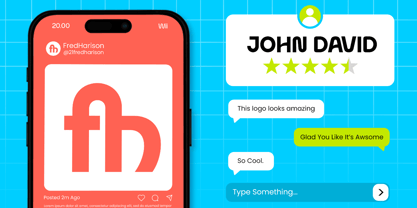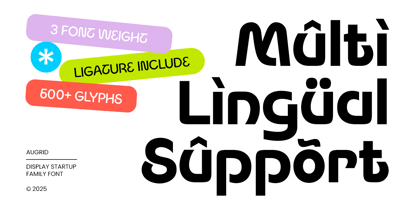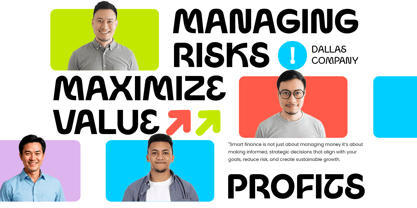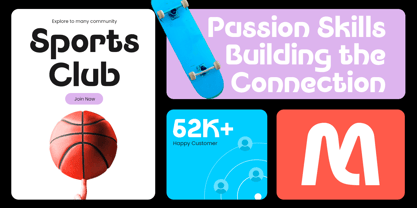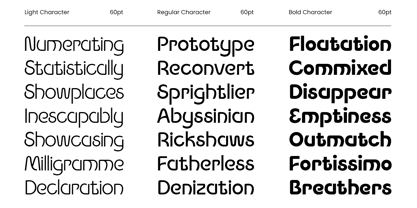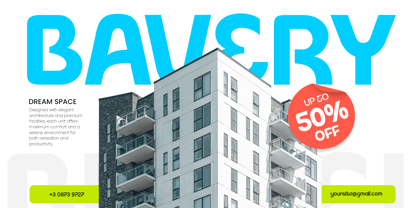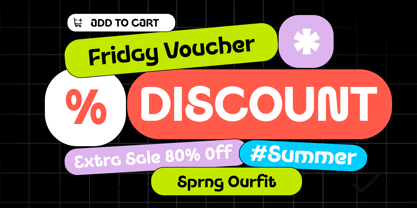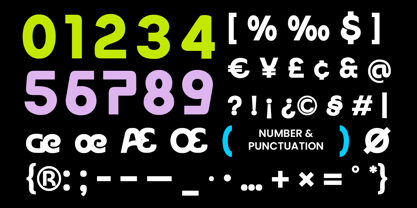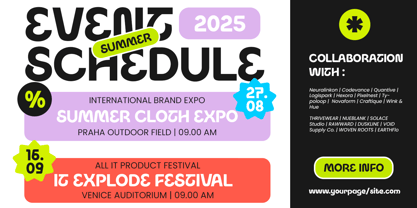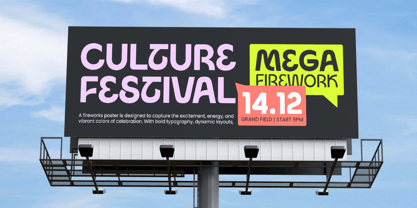
Augrid
Augrid is a minimal logo font family designed to bring simplicity, balance, and sophistication to your branding projects. Created with clean geometric shapes and refined proportions, this typeface family is ideal for modern brands, digital products, and timeless visual identities.
Perfect for logos, packaging, corporate identity, and editorial layouts, Augrid offers multiple weights for flexibility — from light and elegant to bold and confident. Its minimal style enhances clarity and consistency across every application, making it a top choice for designers who value modern simplicity and visual harmony.
With its sharp details and well-crafted structure, Augrid works beautifully in both print and digital formats, delivering a professional, polished appearance for tech, architecture, or business branding.
Augrid – Minimal Logo Font Family Features
• Complete modern sans serif font family with multiple weights
• Included 3 weights inside: Light, Regular, and Bold version
• Perfect for logos, branding, websites, and editorial layouts
• Minimal geometric design for clean and timeless compositions
• Works seamlessly across print, packaging, and digital media
• Uppercase, lowercase, numerals, and punctuation included
• OpenType features for advanced design flexibility
Create timeless and professional branding with Augrid – the ultimate minimal logo font family for modern, elegant, and clean designs.